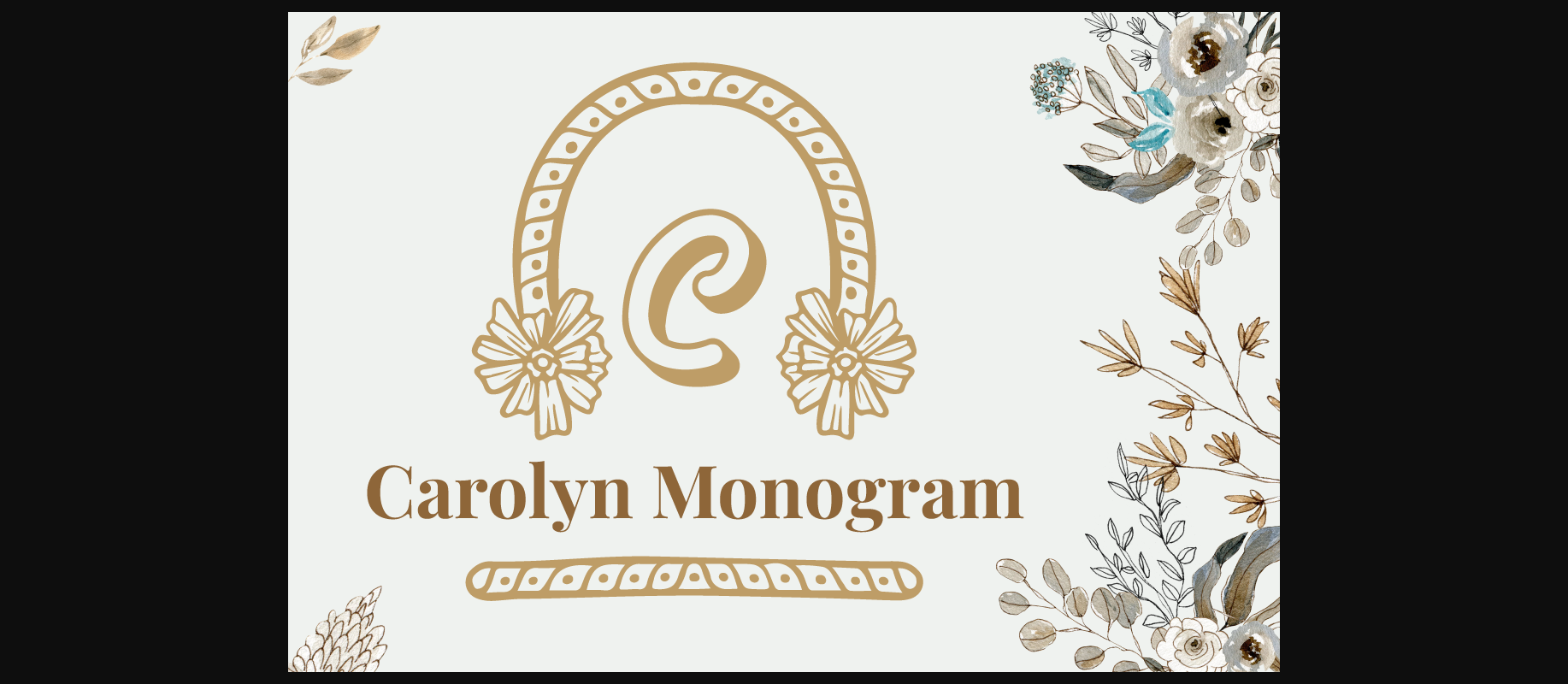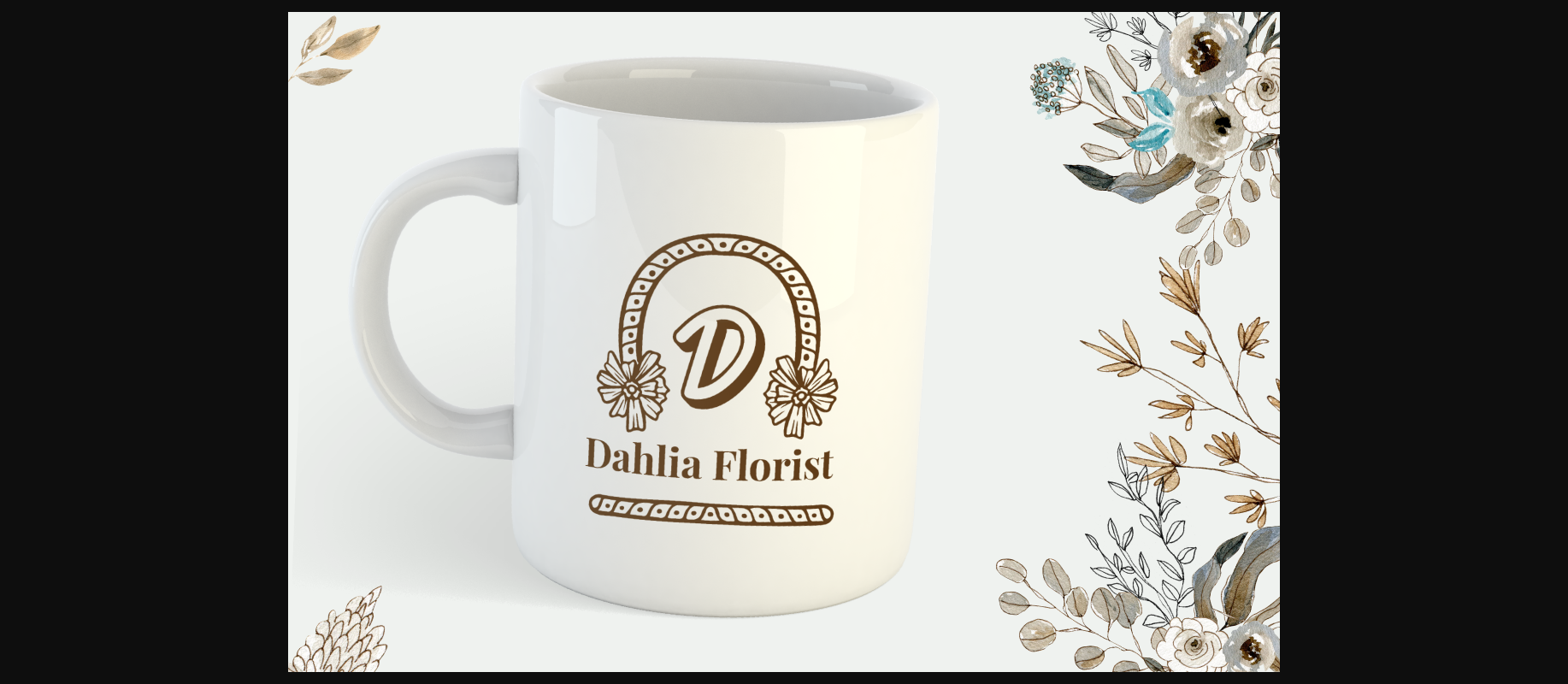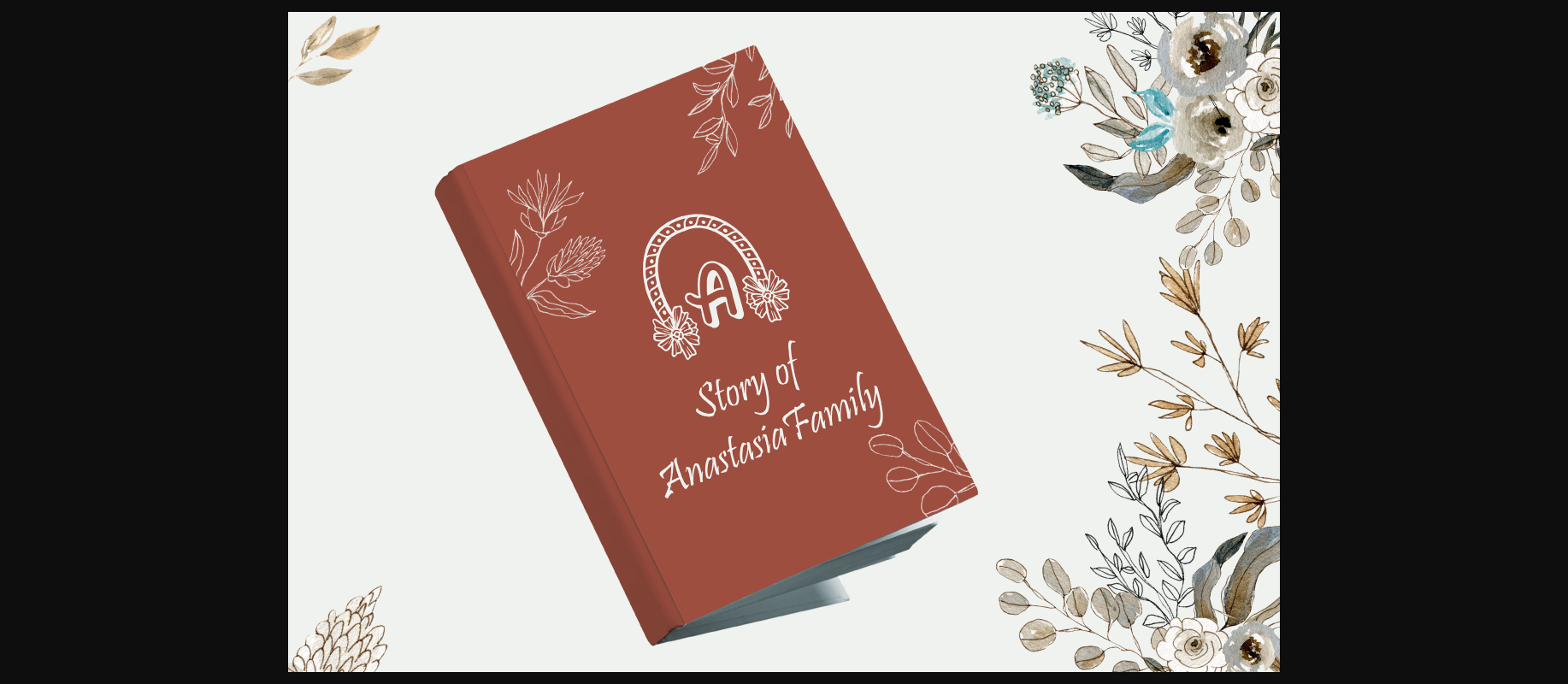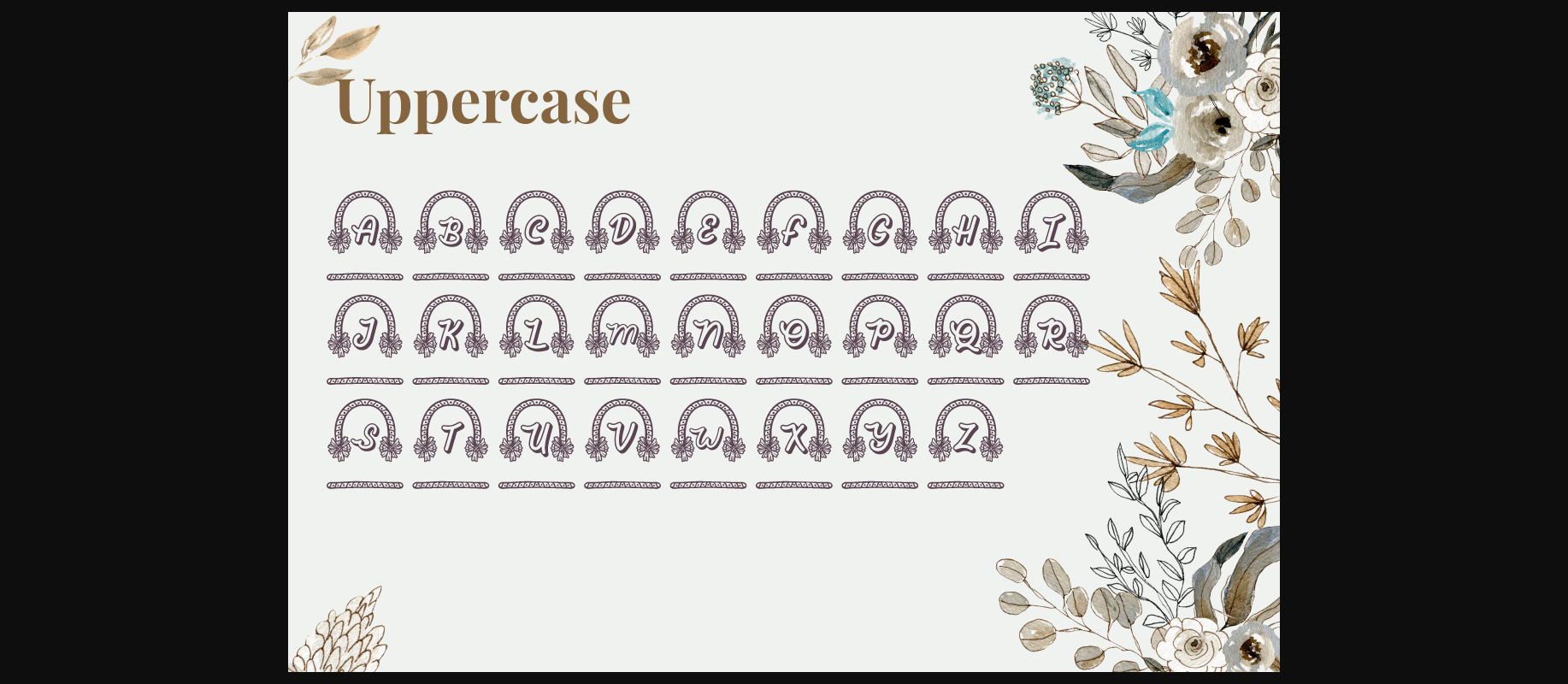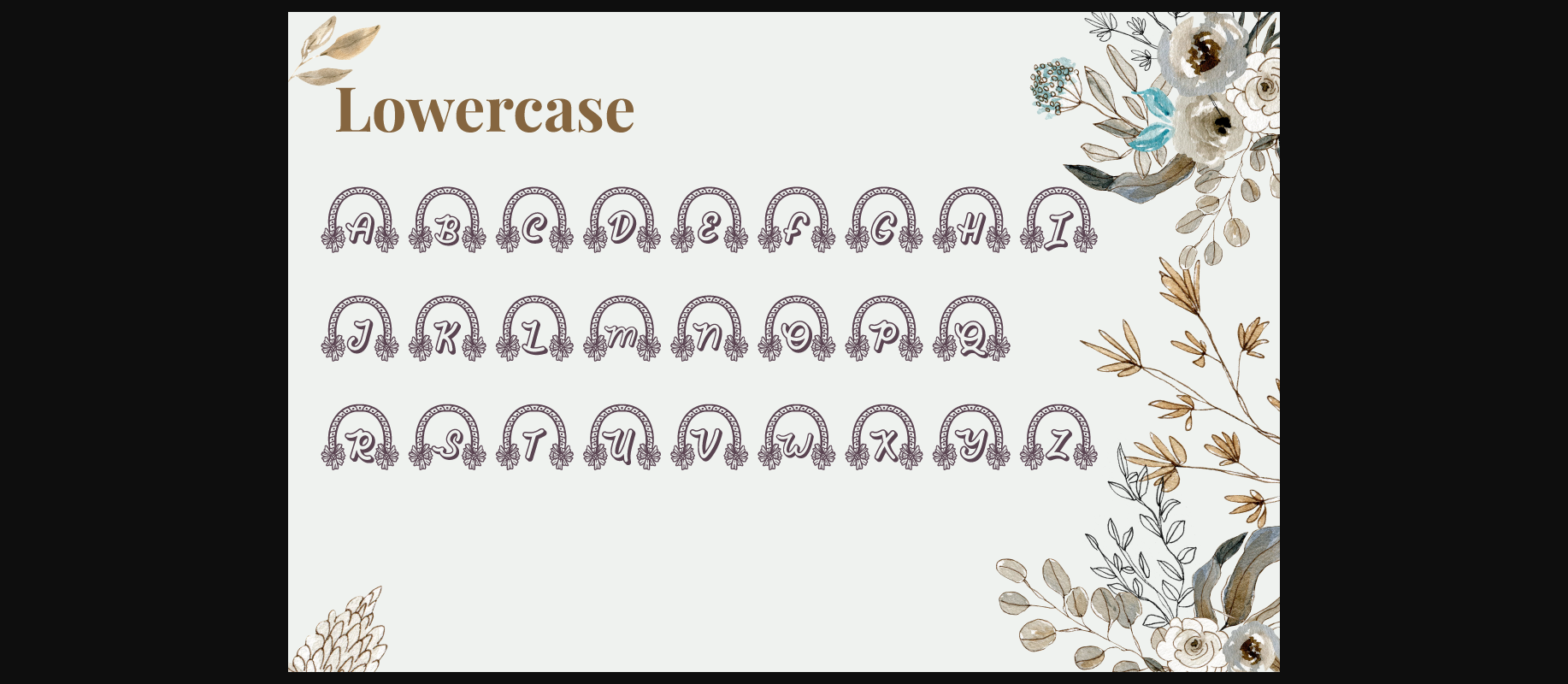
Carolyn Monogram Font
About Carolyn Monogram Font
Carolyn Monogram is a splendid decorative font. Fall in love with its unique characters, and use them to create stunning wedding cards, business designs, logos, social media posts, and other similar items.